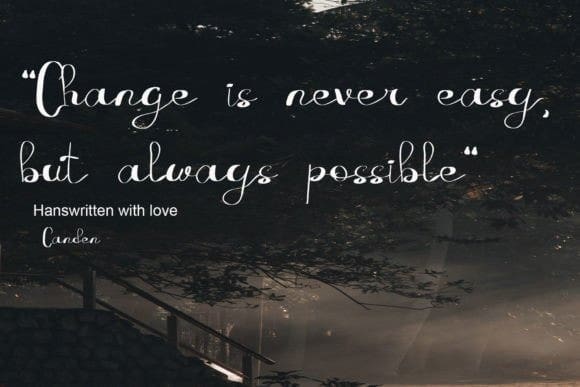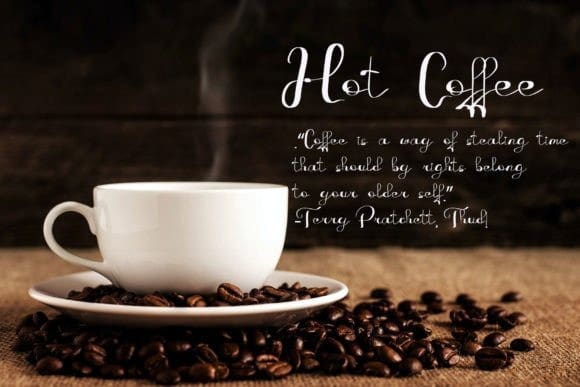
Fatih Font
Fatih Font is a simple and carefully crafted handwritten font perfect for websites, wedding invitations, business cards, signatures, advertisements, and many more. Cool and stylish, this font will be a wonderful addition to your font collection!